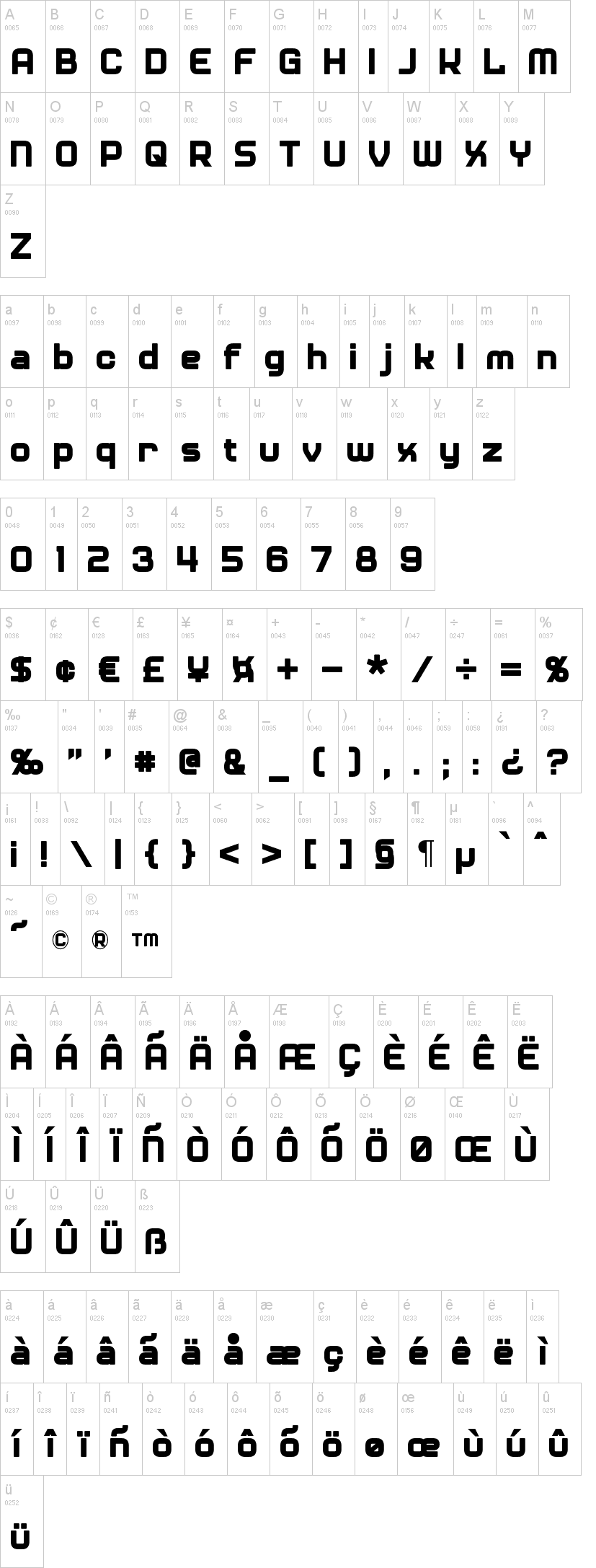
Diner Italic.otfDiner Bold.otfDiner Bold Italic.otfNote of the authorDiner is a simple retro-futuristic font based on the looks of more than a few 1950s diners, marquees, and other signages. Includes full alphabet, extended punctuation and Euro. Includes regular, bold, italic, and bold-italic faces.